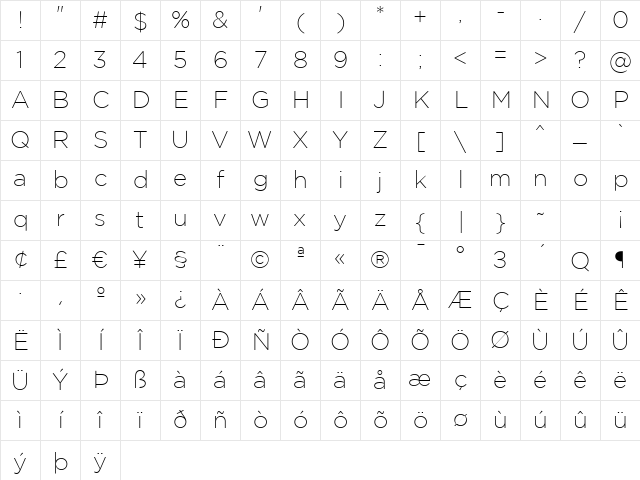
ExtraLight Regular Free Font
ExtraLight Regular
Design Context for ExtraLight
ExtraLight is a composed and adaptable typeface that performs quietly and consistently across a wide range of design contexts. Its slender proportions lend an understated elegance to any composition.